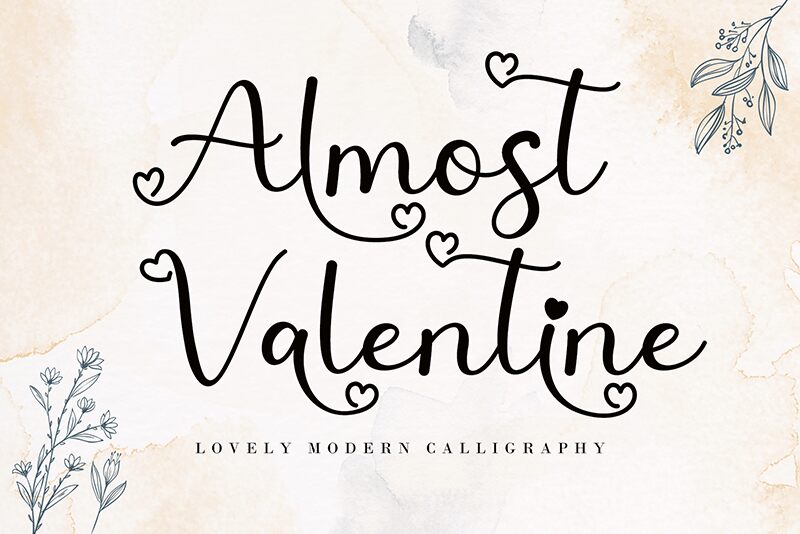
Almost Valentine
With the holiday season just around the corner, Almost Valentine is the perfect font to add a touch of romance to your projects. Designed by AEN Creative Studio 2022, this light-weight valentine script font will take your designs to new heights of elegance and sophistication. The curly and playful strokes of Almost Valentine will make your love letters, greeting cards, wedding invitations, posters and social media posts stand out from the rest. So why settle for ordinary fonts when you can sprinkle some love with Almost Valentine? Get creative and give your projects that extra special touch!